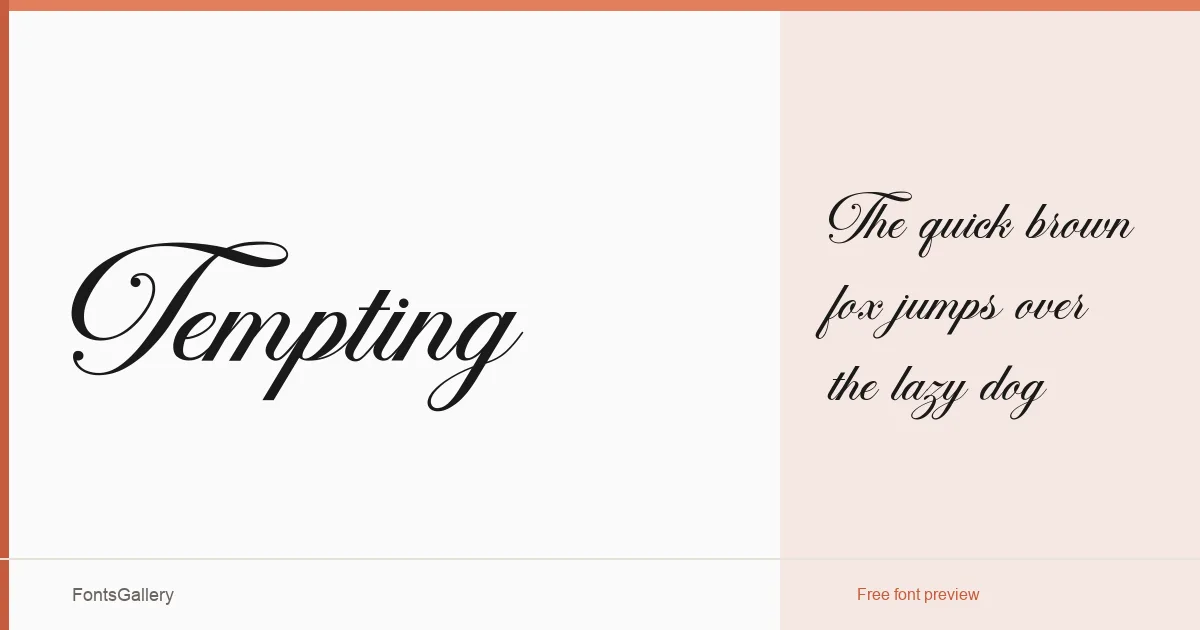
About Tempting Font
Tempting is an elegant script typeface designed by MOH. MA'IN and released through RGB Studio. It exudes a sense of romance and luxury, making it a standout choice for projects that demand a refined, classic touch. With its graceful letterforms, Tempting brings timeless sophistication to any design it graces.
Tempting features flowing, hand-crafted script letterforms that embody elegance and romantic charm. Its classic styling is evident in the fluid strokes and tasteful flourishes that give each character a luxurious, refined presence. The overall aesthetic strikes a perfect balance between ornate expressiveness and polished readability.
Tempting is ideally suited for logos, wedding stationery, invitation cards, greeting cards, and certificates where an elevated, romantic aesthetic is desired. Its luxurious character makes it especially compelling for branding projects that aim to convey prestige and timeless class. Tempting pairs beautifully with Aresink for an all-script combination or with Helvetica for a striking contrast between decorative and clean sans-serif styles.